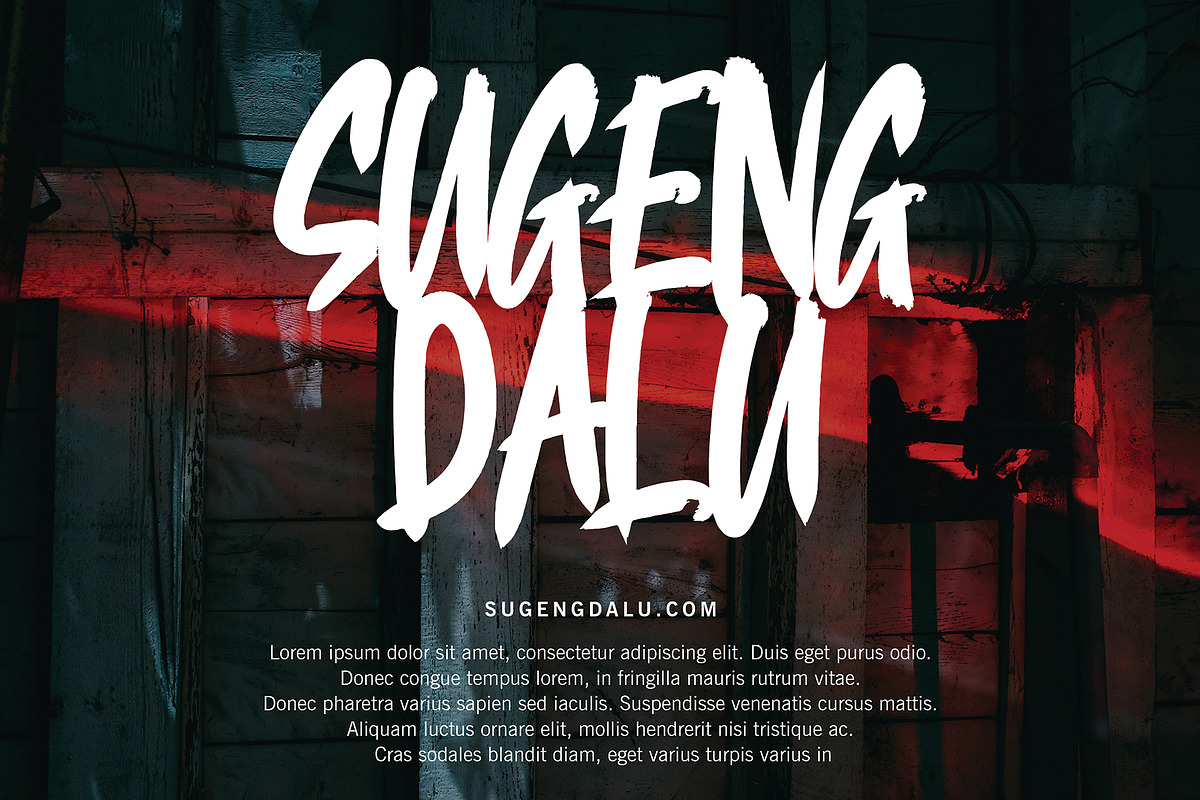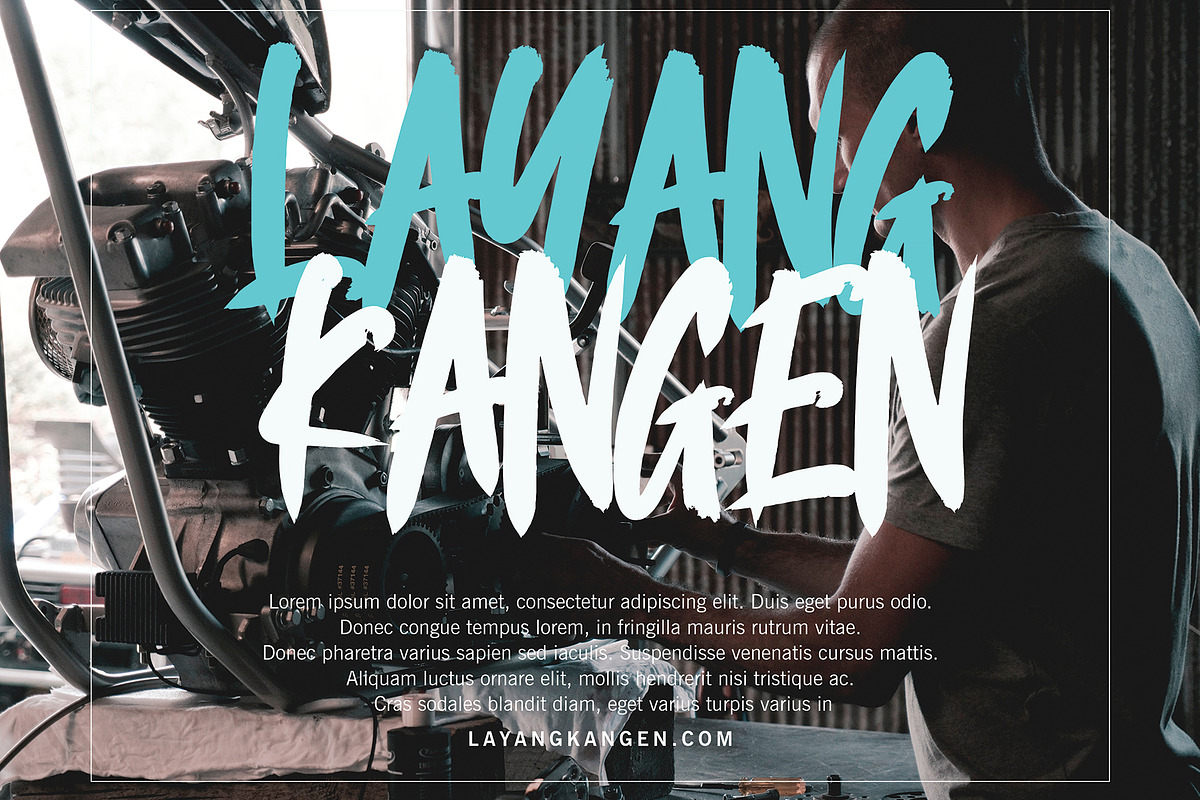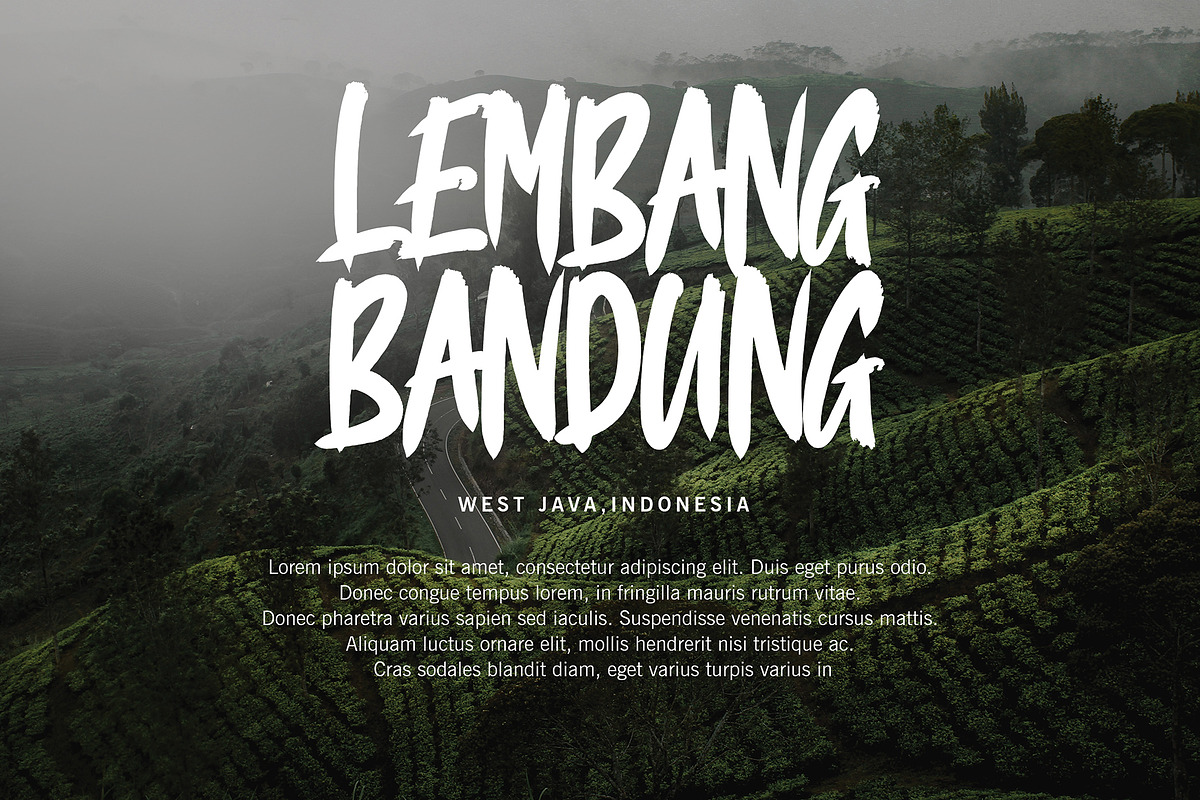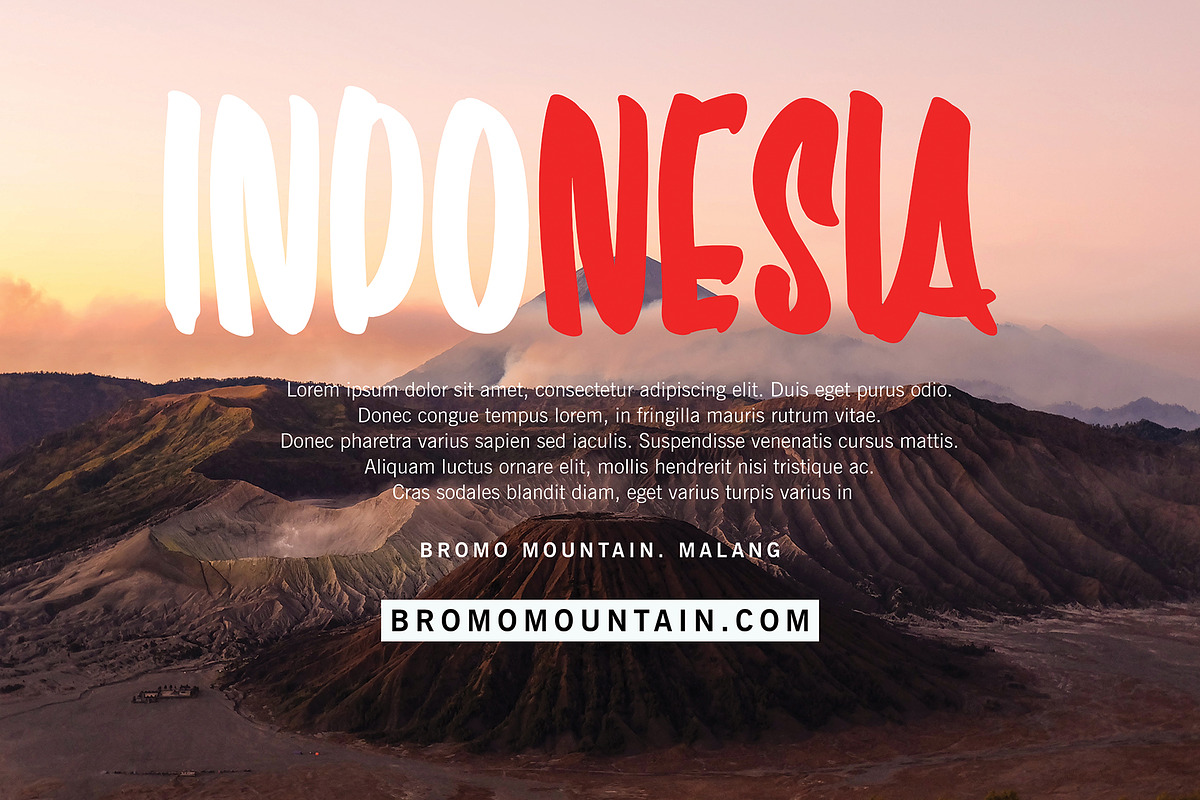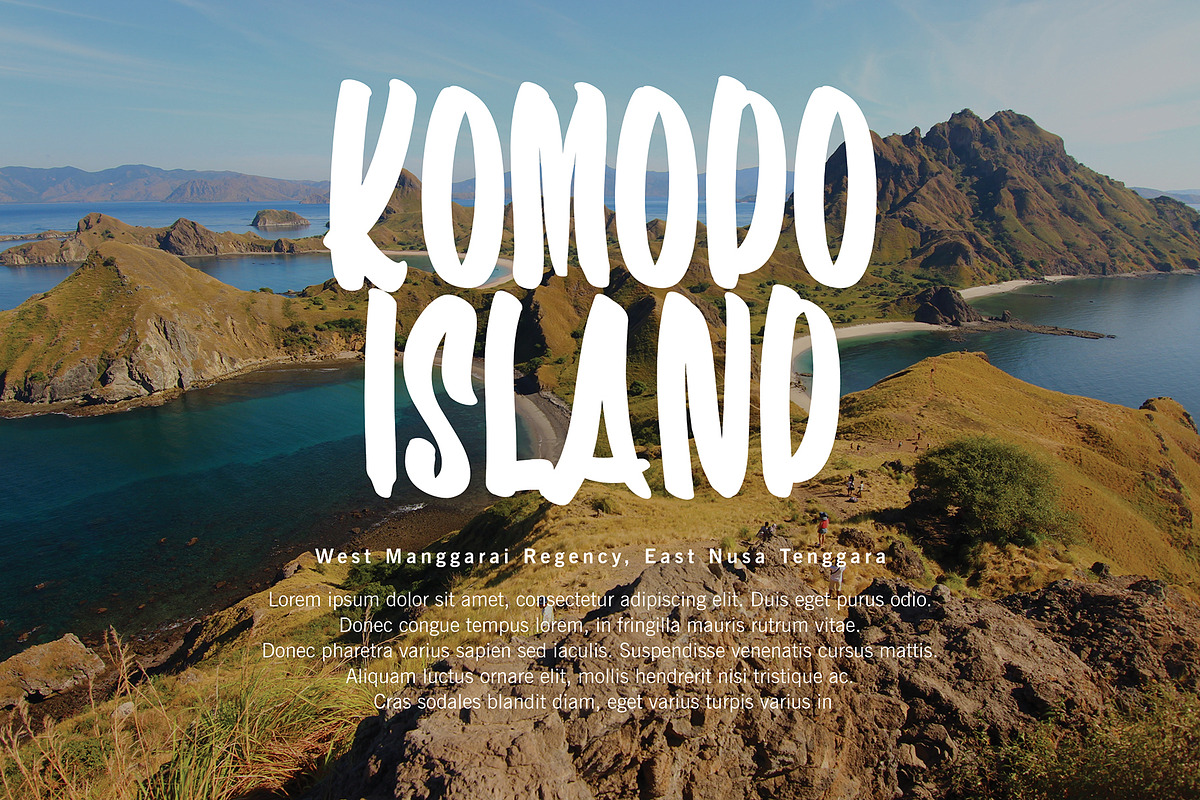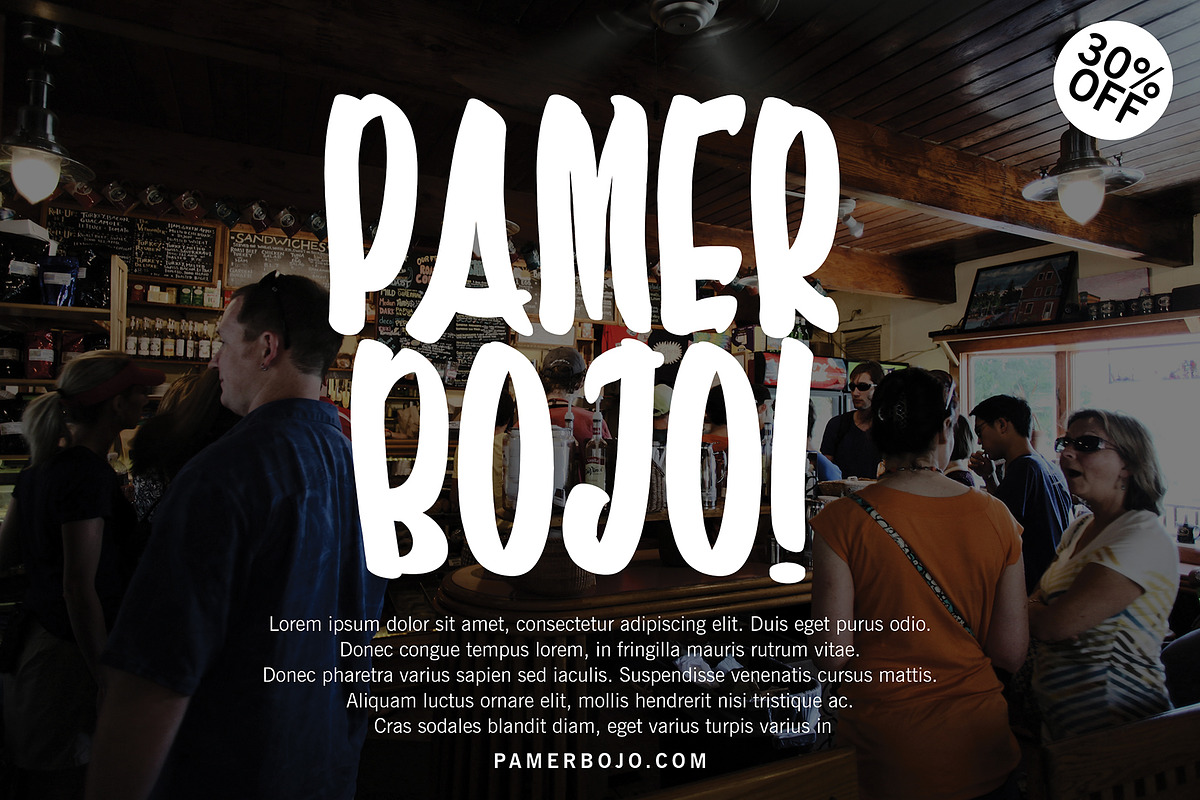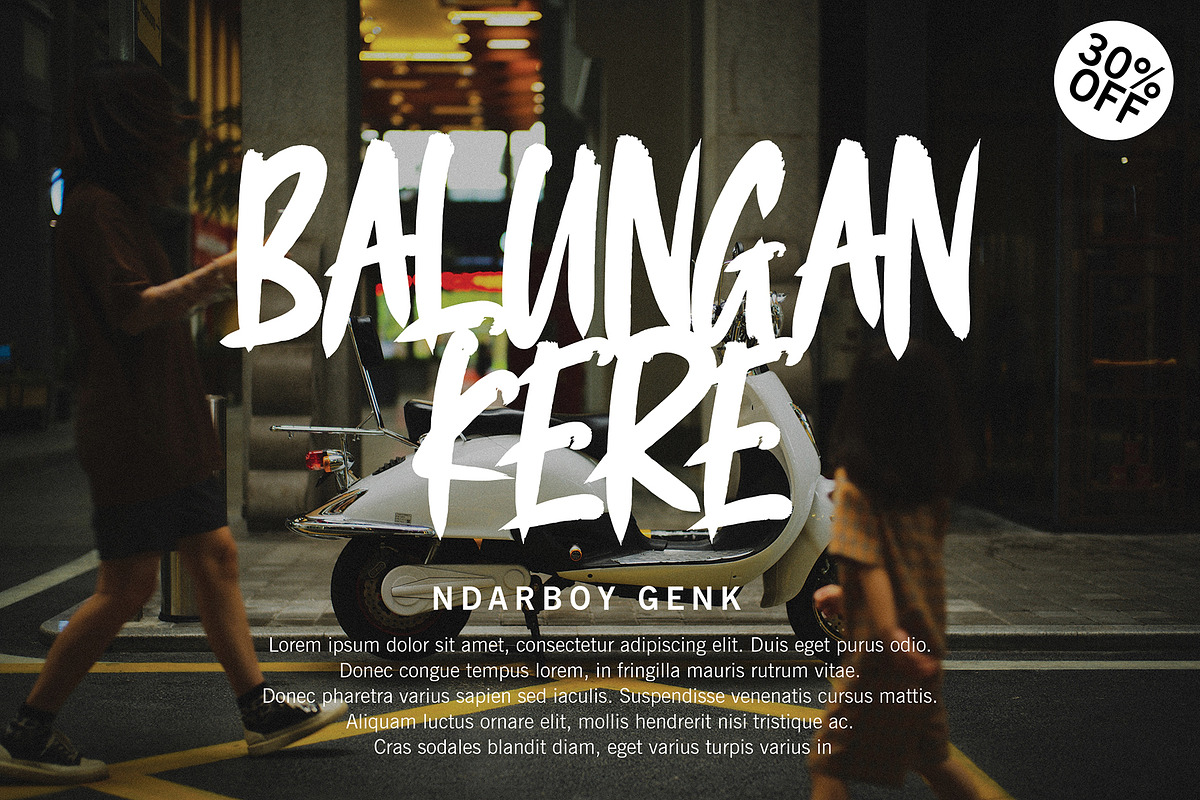
ONE SHOT FONT DUO !!!
ONE SHOT font with new style Display, this font will perfect for many different project ex: quotes, logo, blog header, poster, banding, fashion, apparel, letter, invitation, stationery, etc...
ONE SHOT FONT DUO !!! by pineungtype fits naturally into Branding, posters, packaging, typography.